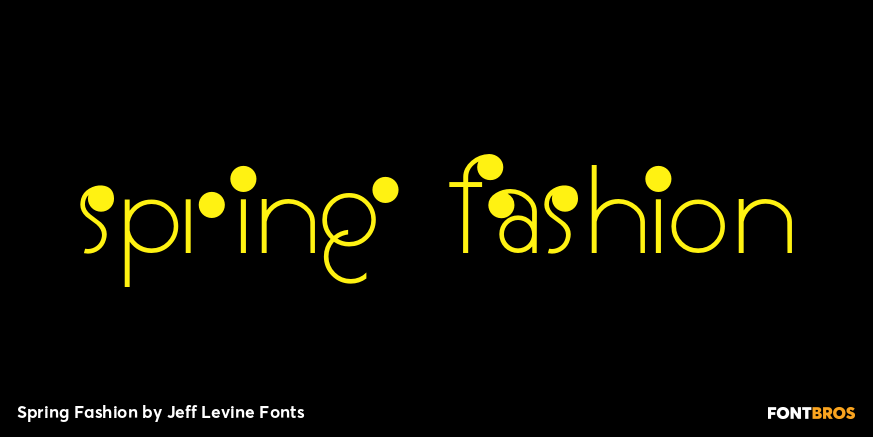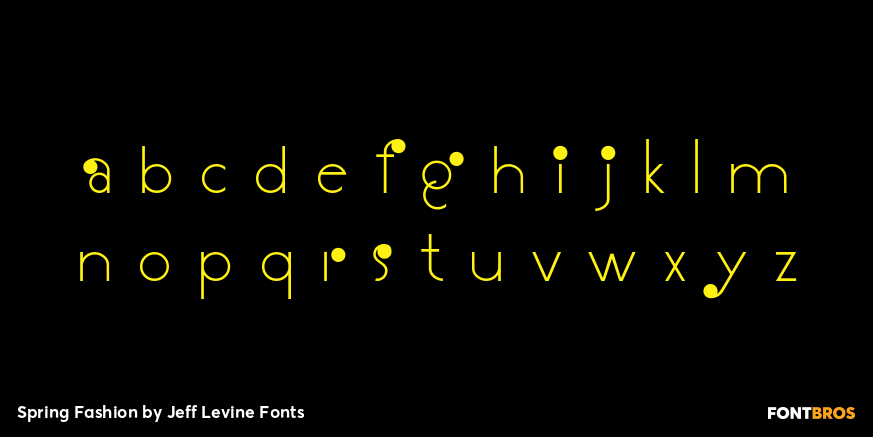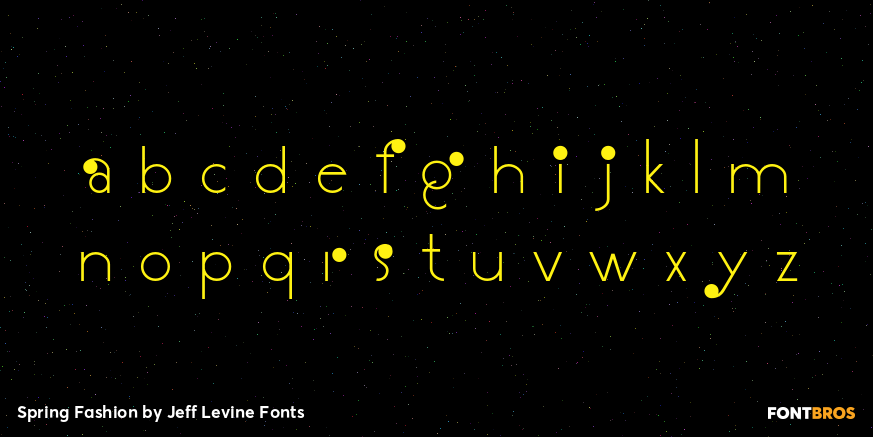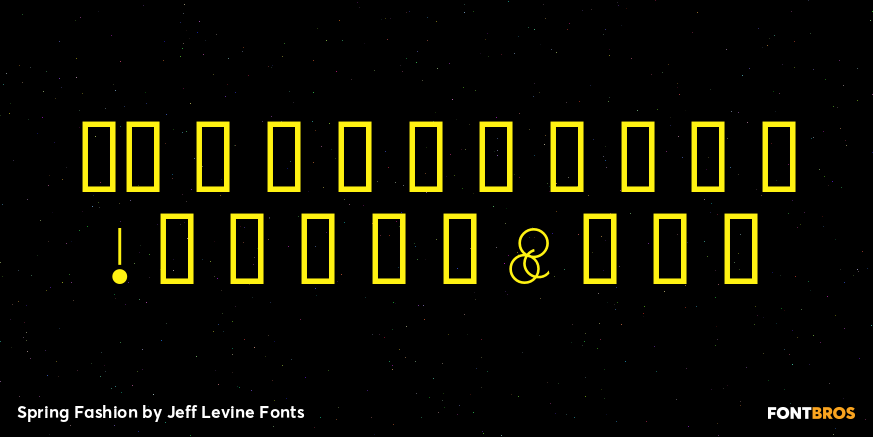
Spring Fashion
Spring Fashion JNL was modeled after an example of hand lettering from an old book displayed on an online auction. Rendered in lower case only with basic punctuation, this type design was made specifically for headlines. Its light, airy personality adds charm to simple ad copy or titles.
Spring Fashion JNL Regular by Jeff Levine Fonts